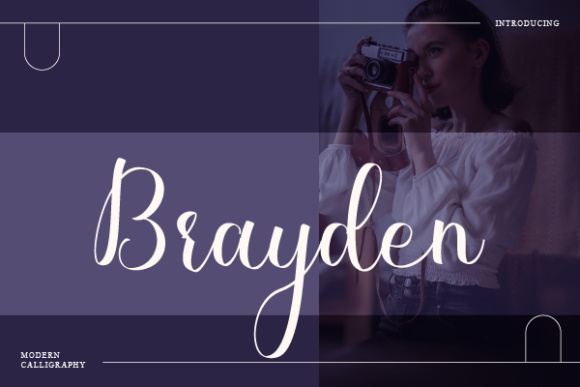
Dive into the enchanting world of Brayden, a script font that exudes timeless elegance and heartfelt charm. Its delicate curves and flowing lines evoke a sense of warmth and grace, captivating hearts with its undeniable beauty.
Created with meticulous attention to detail by the skilled hands of fiqiart, Brayden is a masterpiece of digital artistry. Each letter is a work of art, crafted to convey emotion and add a touch of sophistication to any design.
Whether you're crafting the perfect wedding invitations, sending heartfelt thank you notes, or expressing your creativity through quotes and greeting cards, Brayden is the font that will make your words dance with joy. Its versatility extends to logos and business cards, lending a touch of elegance and professionalism to your branding.
Brayden is more than just a font; it's a way to express your individuality and create designs that leave a lasting impression. Its delicate charm will add a touch of magic to any occasion, from the most romantic weddings to the most heartfelt expressions of gratitude.